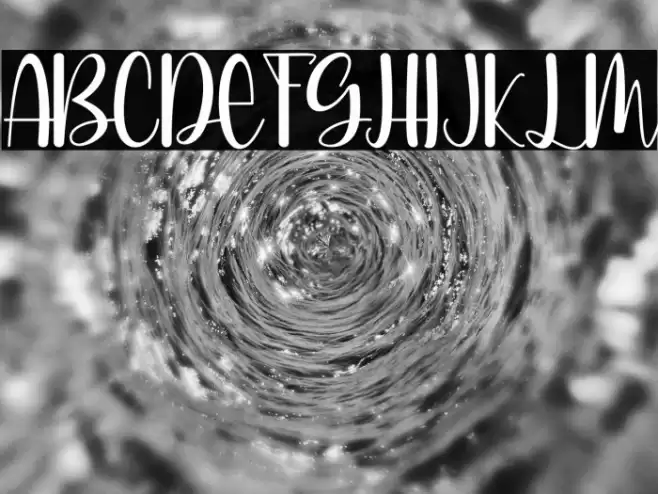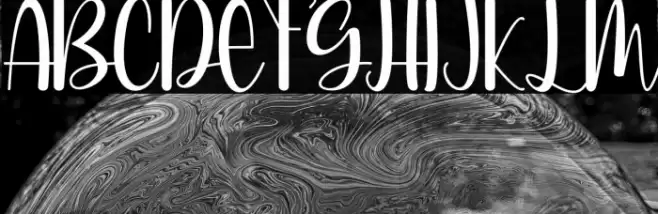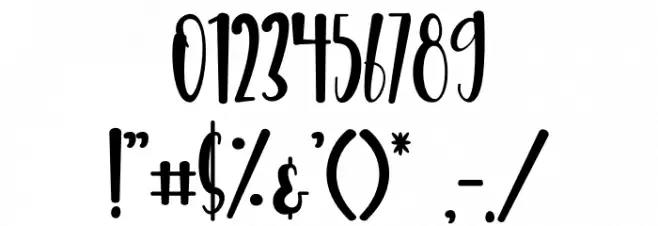
Delight day Font
Delight day Description
This font features a playful and whimsical style with a handwritten appearance. The letters are characterized by their tall, narrow forms and a mix of straight and curved lines, giving them a dynamic and lively feel. The uppercase letters have a unique flair with varying stroke thickness, while the lowercase letters maintain a consistent flow. The numerals are bold and easy to read, complementing the overall style. Special characters are creatively designed, adding to the font's charm. This font is perfect for projects that require a touch of personality and creativity.
A playful, handwritten-style font with dynamic, tall letters and creative flair from Uncategorized fonts.
- Font: Delight day
- Proposed Projects: Ideal for greeting cards, invitations, playful branding, and creative posters.
- Use Case: Headlines, Logos, Invitations